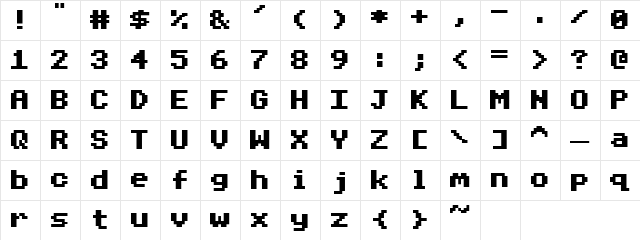
Beeb Mode One Regular Font Preview
Beeb Mode One Regular
Design Context for Beeb Mode One Typeface
Beeb Mode One offers clean, dependable letterforms without strong stylistic allegiance, making it a practical choice for designers who need flexibility.